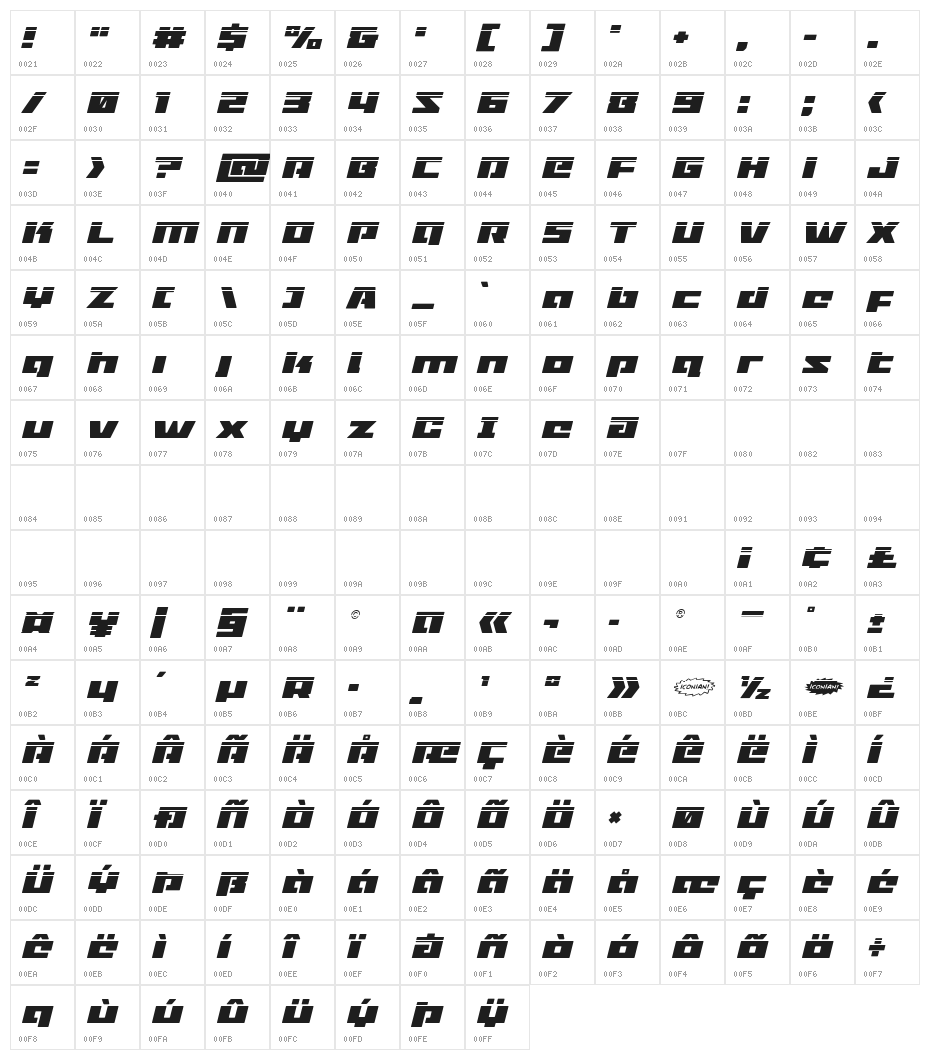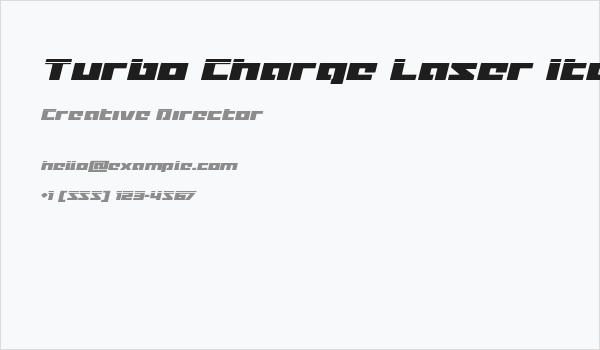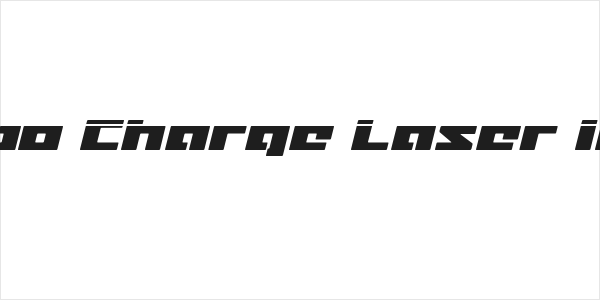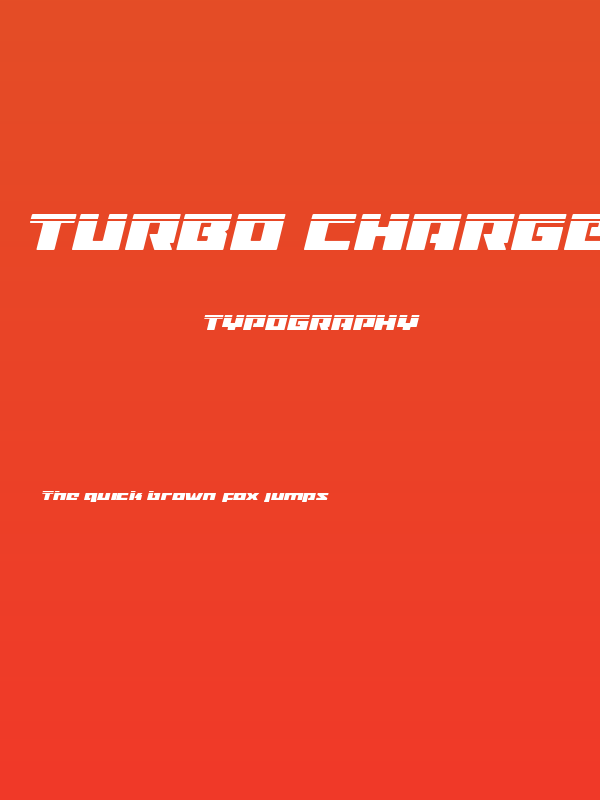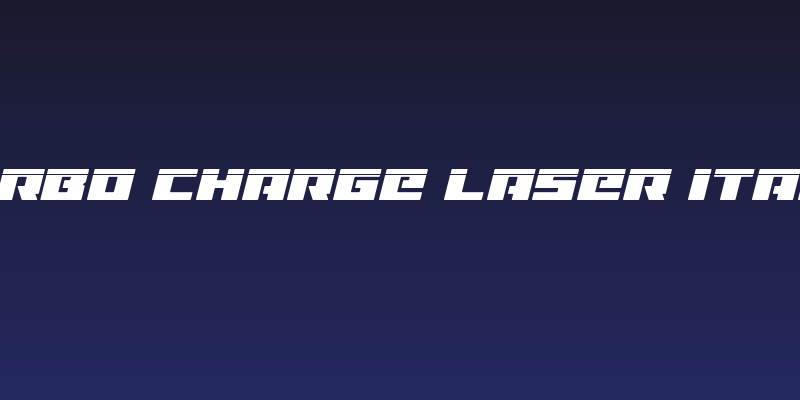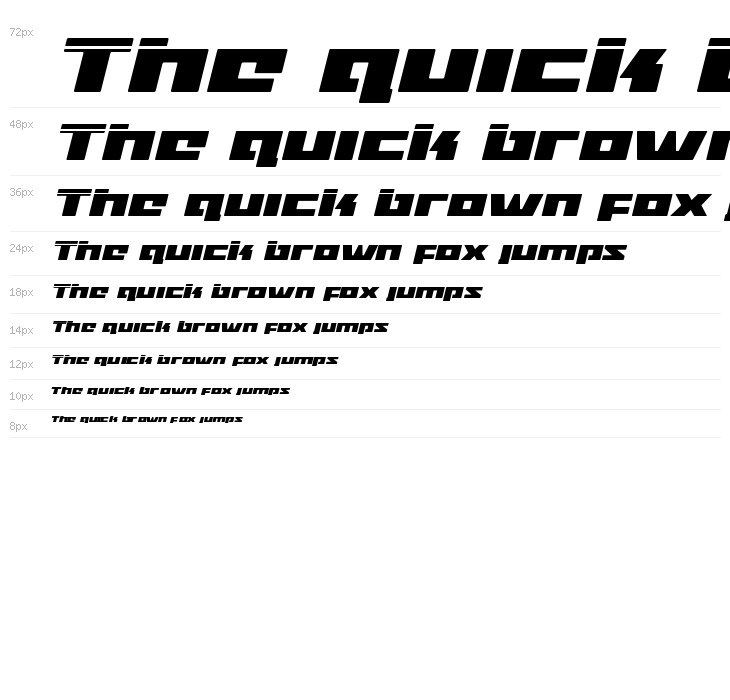
Turbo Charge Laser Italic Font
Turbo Charge Laser Italic Description
This font features a bold, futuristic design with angular and geometric shapes. The characters are italicized, giving a sense of motion and speed. The uppercase letters are particularly striking, with sharp edges and a blocky appearance. The lowercase letters maintain the same angular style, ensuring consistency throughout. Numbers and special characters are designed to match the bold and dynamic aesthetic, making them suitable for impactful displays. The overall design is reminiscent of technology and innovation, making it ideal for modern and cutting-edge projects.